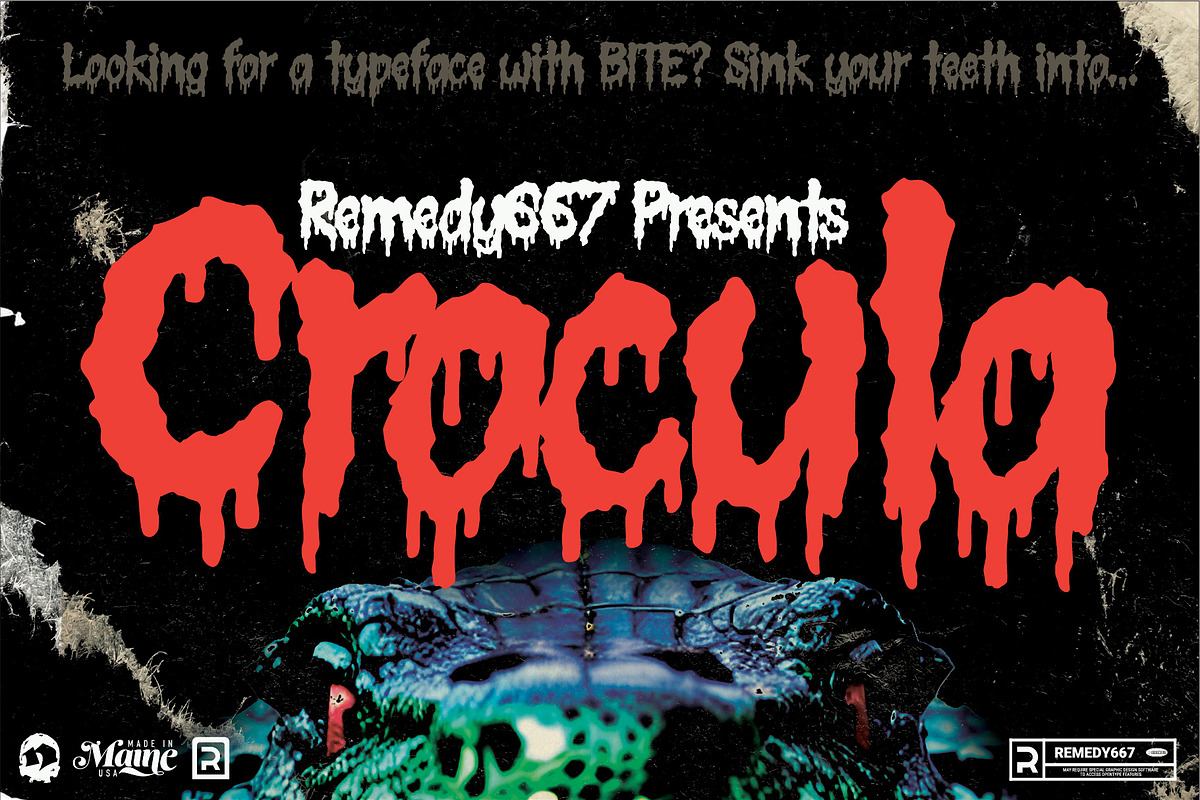
Crocula - Dripping Horror Font Free Download
Crocula – Dripping Horror Font Free Download
Crocula – Dripping Horror Font Free Download is a spine-chilling display typeface inspired by classic horror films, haunted houses, and Halloween thrills. With its gooey drips, jagged edges, and eerie flair, Crocula is perfect for spooky posters, themed party invitations, scary movie titles, haunted attraction signage, and all things frightfully fun.
This font oozes personality—literally. Every letter looks like it's melting or bleeding, giving your designs an instant sense of terror and fun. Whether you're creating for October campaigns or need a creepy vibe for your next design, Crocula delivers the perfect horror aesthetic.
Let your designs scream with the creepy, dripping style of Crocula!